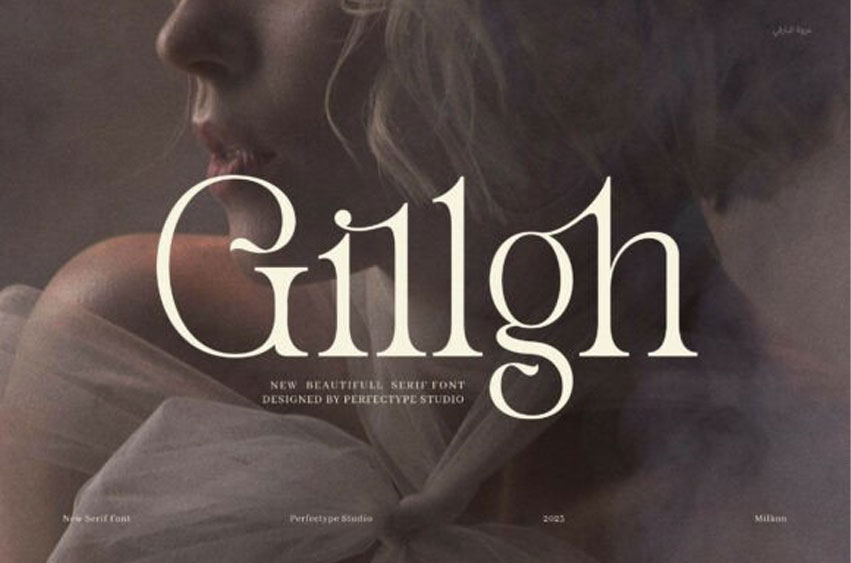
Gillgh Font
Gillgh Font is a modern, stylish serif font designed to add a touch of class and charm to your projects. With smooth curves, balanced shapes, and clear letters, it works well in both large headlines and small text. Moreover, it helps your designs look professional and polished every time. One of the key features of Gillgh is its functional ligatures.
These ligatures connect letters naturally, so your text flows smoothly. As a result, your designs feel more refined and attractive without losing clarity or simplicity.